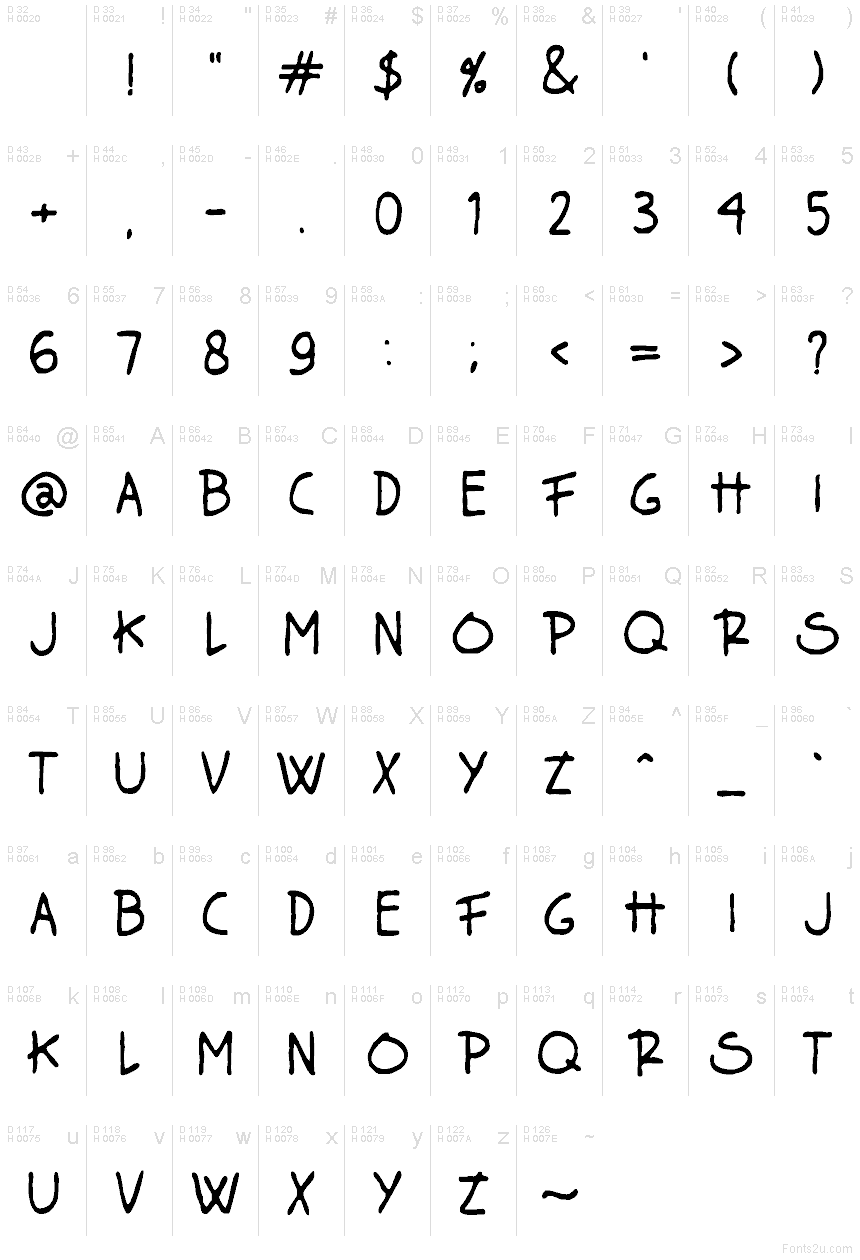
Silent Room
Silent Room font by Origin Type is a free handwritten horror display font. Its ink-scratch texture, jittery strokes, and slightly uneven baselines give each word a creeping, breath-on-the-neck energy. Tall, tapering forms keep legibility high while the rough edges deliver just the right shiver—like notes scrawled in a hurry on a damp wall.
Using Silent Room, headlines snap with tension without turning unreadable. This free font shines on horror movie posters, thriller book covers, escape room branding, haunted house flyers, indie game title screens, and true-crime podcast art. Pair it with a clean geometric sans for body copy, and give it a touch of extra tracking at large sizes to amplify the eerie air.